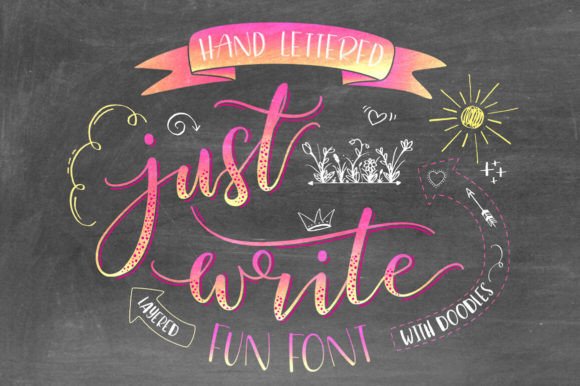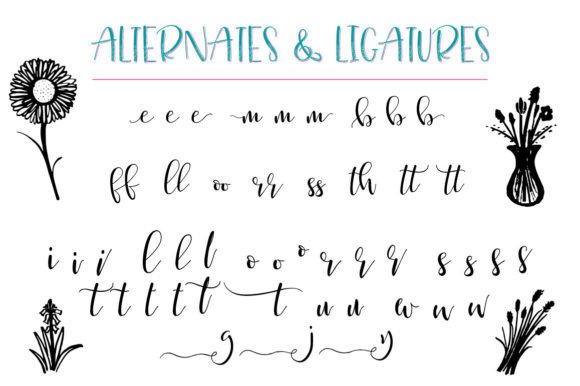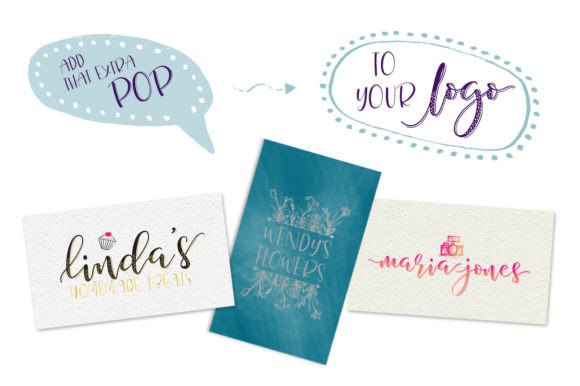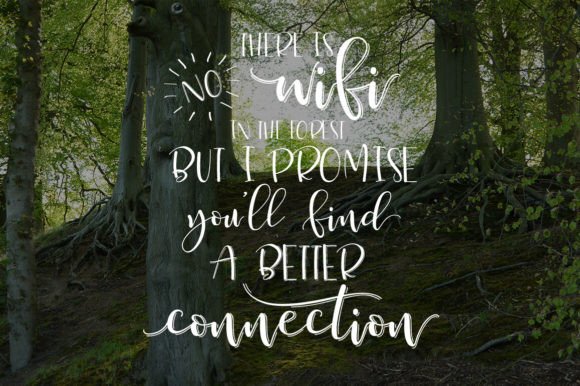
Just Write Font
About the Just Write Font
Experience the unique personality of Just Write Font, a font designed for impact. You can really make your designs POP with this hand-lettered layered font!
This little bundle of fonts is perfect for a hand-lettered feel to your projects. The caps work perfectly on their own and are great for complimenting all lowercase lettering too! The dots give off a real feel of celebration and with the free doodles, you’ve got everything you need to make some great designs!
Just Write Font’s playful, layered style is ideal for headlines, short text blocks on posters or social media graphics, and branding elements requiring a handcrafted feel. It excels in projects needing a touch of celebratory energy, such as invitations or children’s products. However, its intricate details make it less suitable for body text or UI elements where readability is paramount. Avoid using it for lengthy paragraphs or small sizes.
Consider pairing Just Write Font with a clean sans-serif like Open Sans for a balanced contrast, or a classic serif such as Playfair Display for a more elegant combination. For a more modern feel, a geometric sans-serif like Montserrat could work well. The script font Great Vibes would provide an interesting contrast if a more whimsical aesthetic is desired.
The font projects a bold, friendly personality, best suited to brands targeting younger demographics or those emphasizing creativity and approachability. Its hand-lettered charm creates an approachable and visually engaging design, particularly when used strategically for emphasis.
Just Write Font Usage Examples
Just Write Font Example